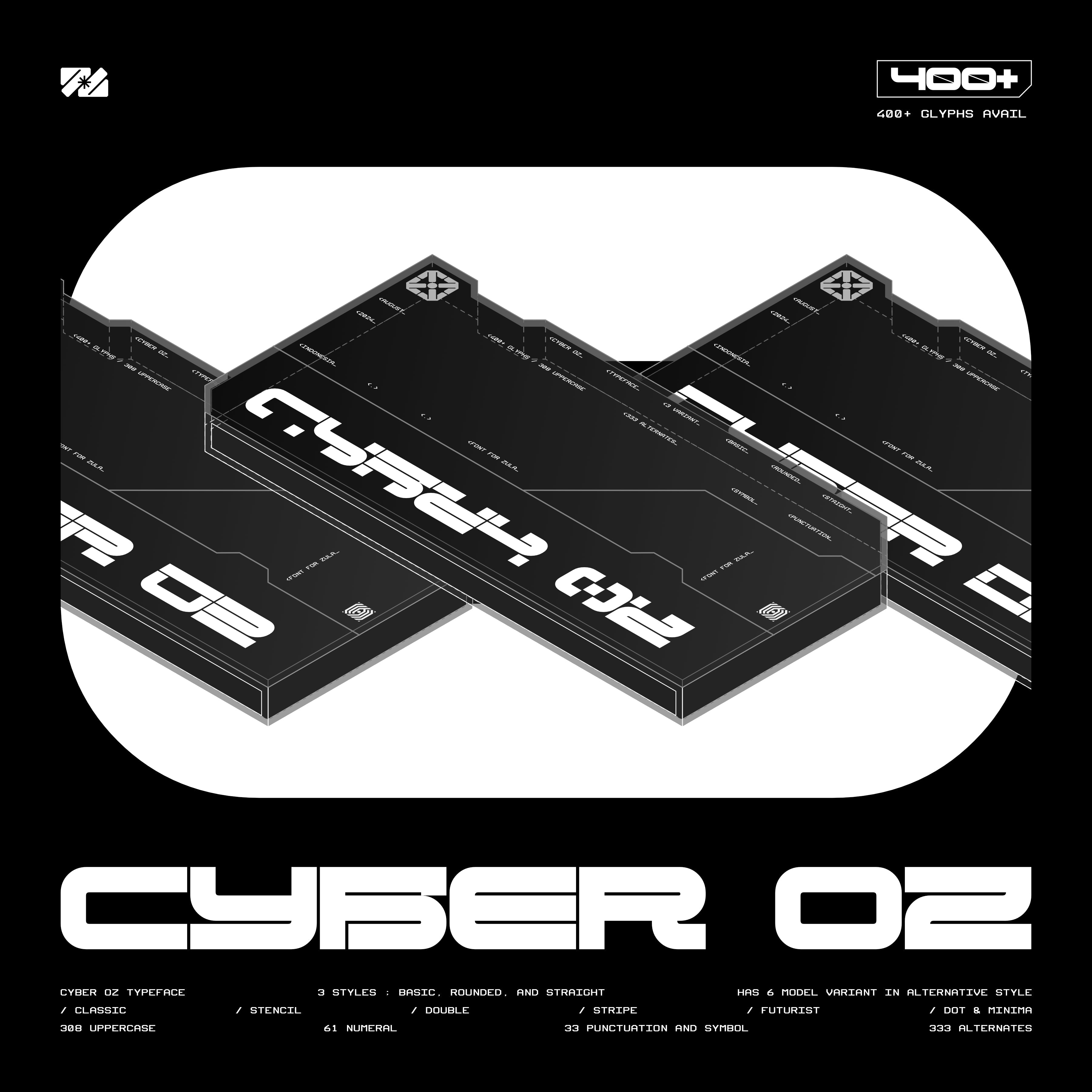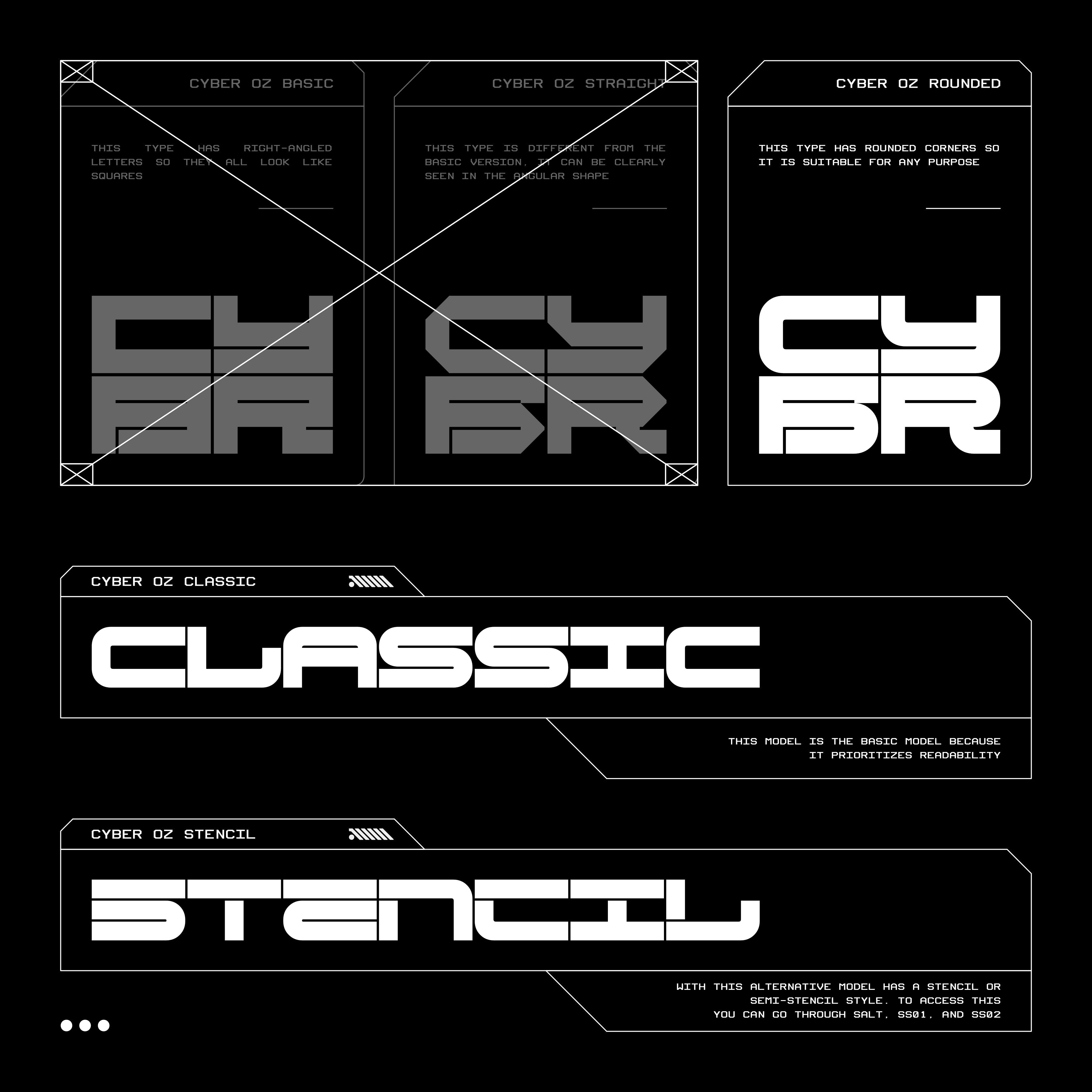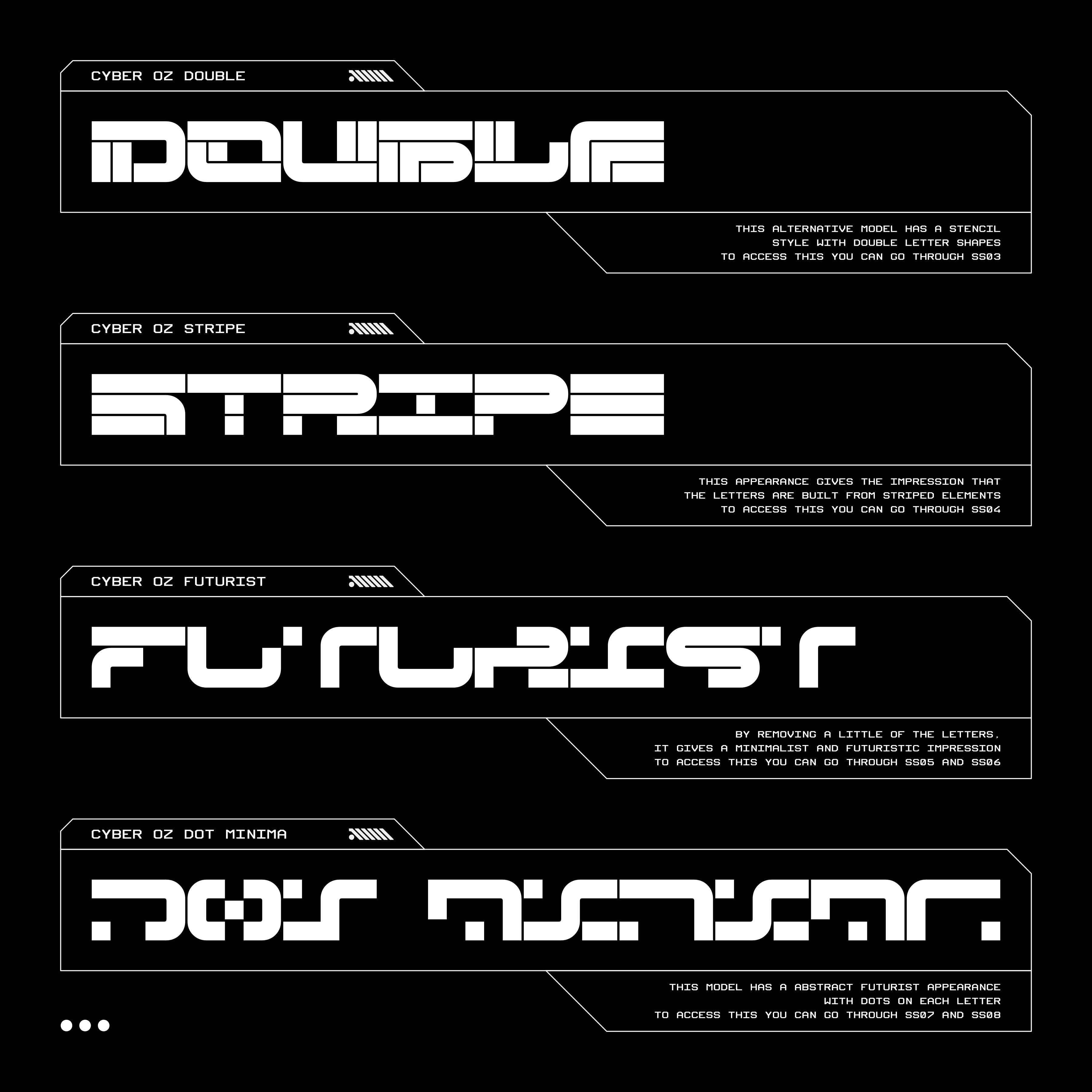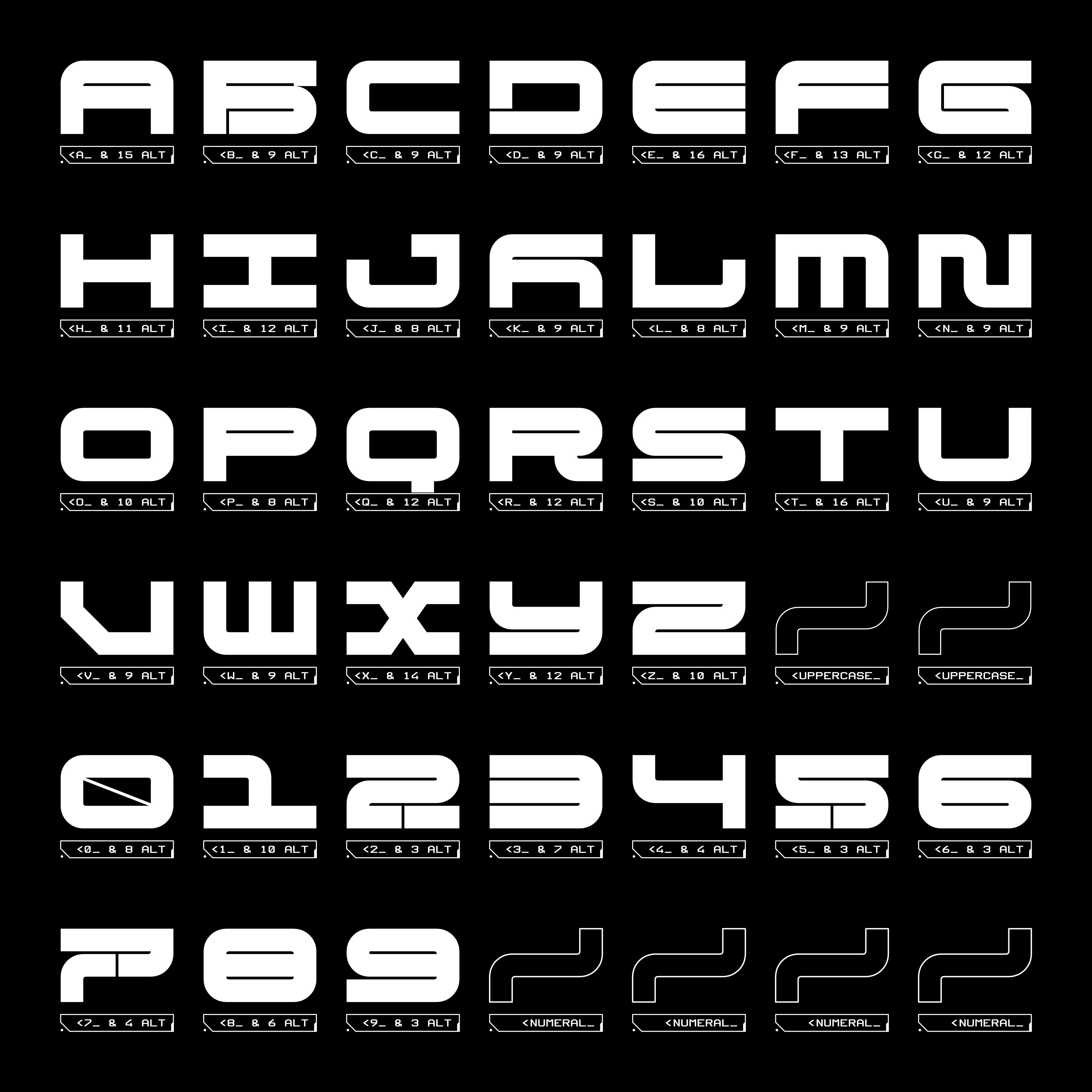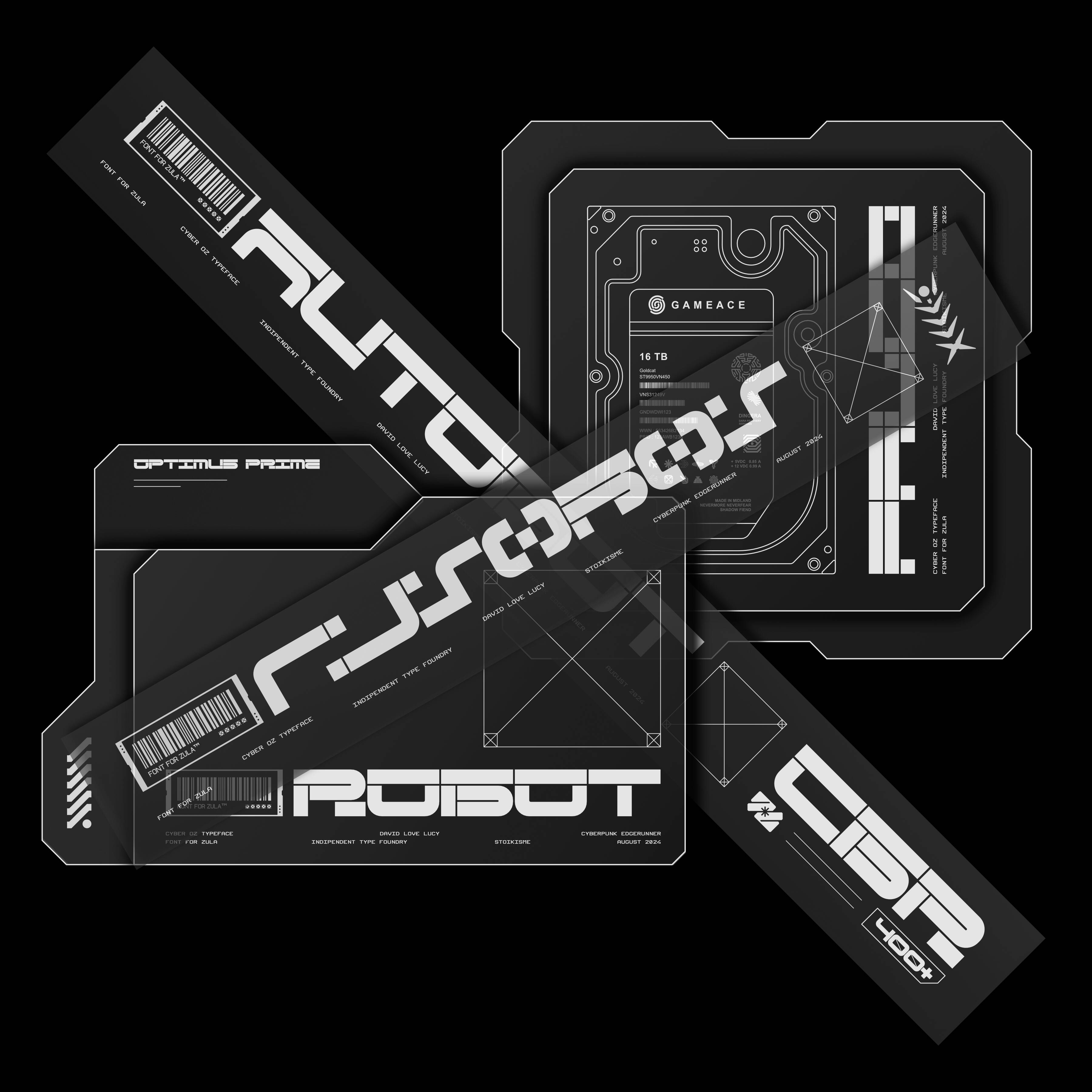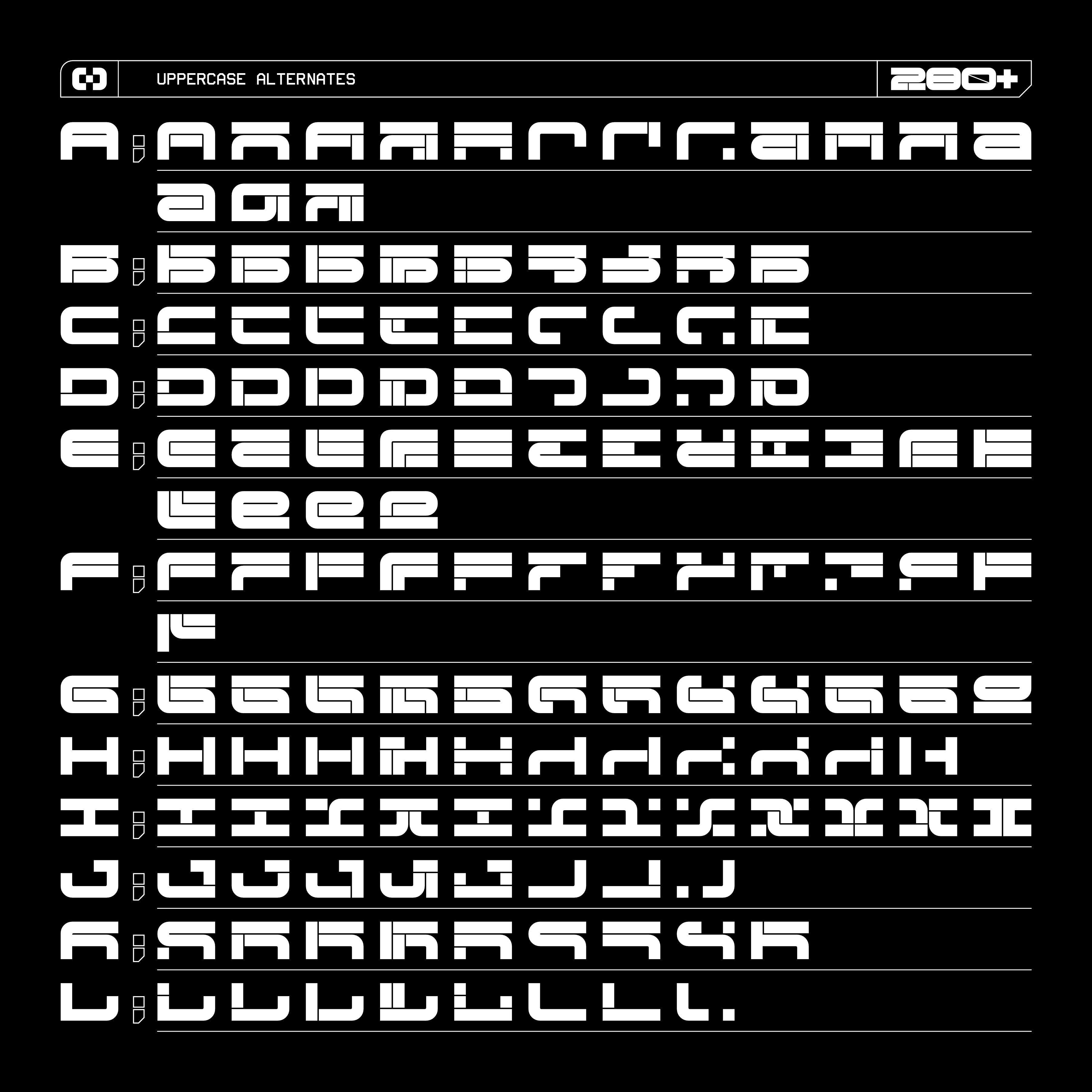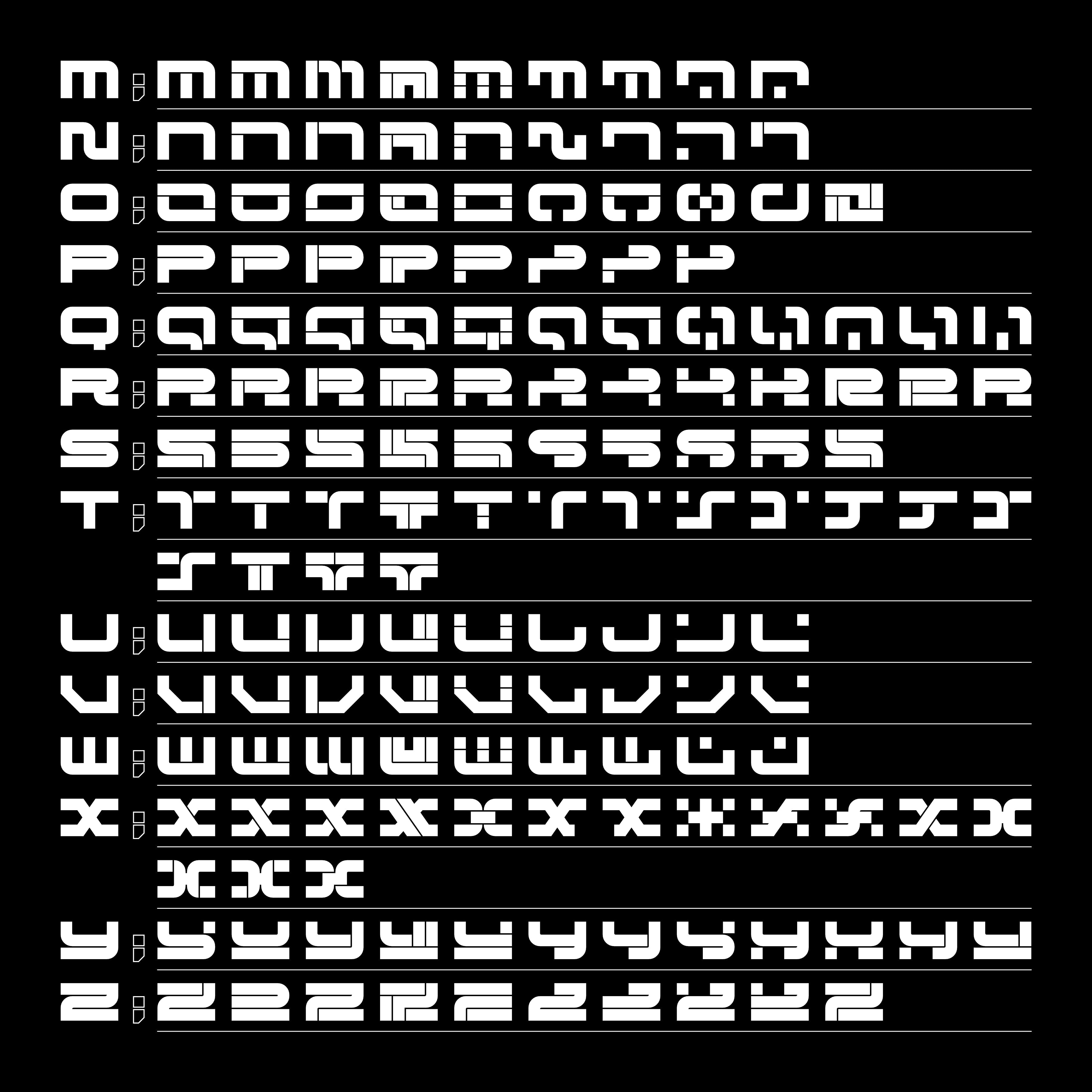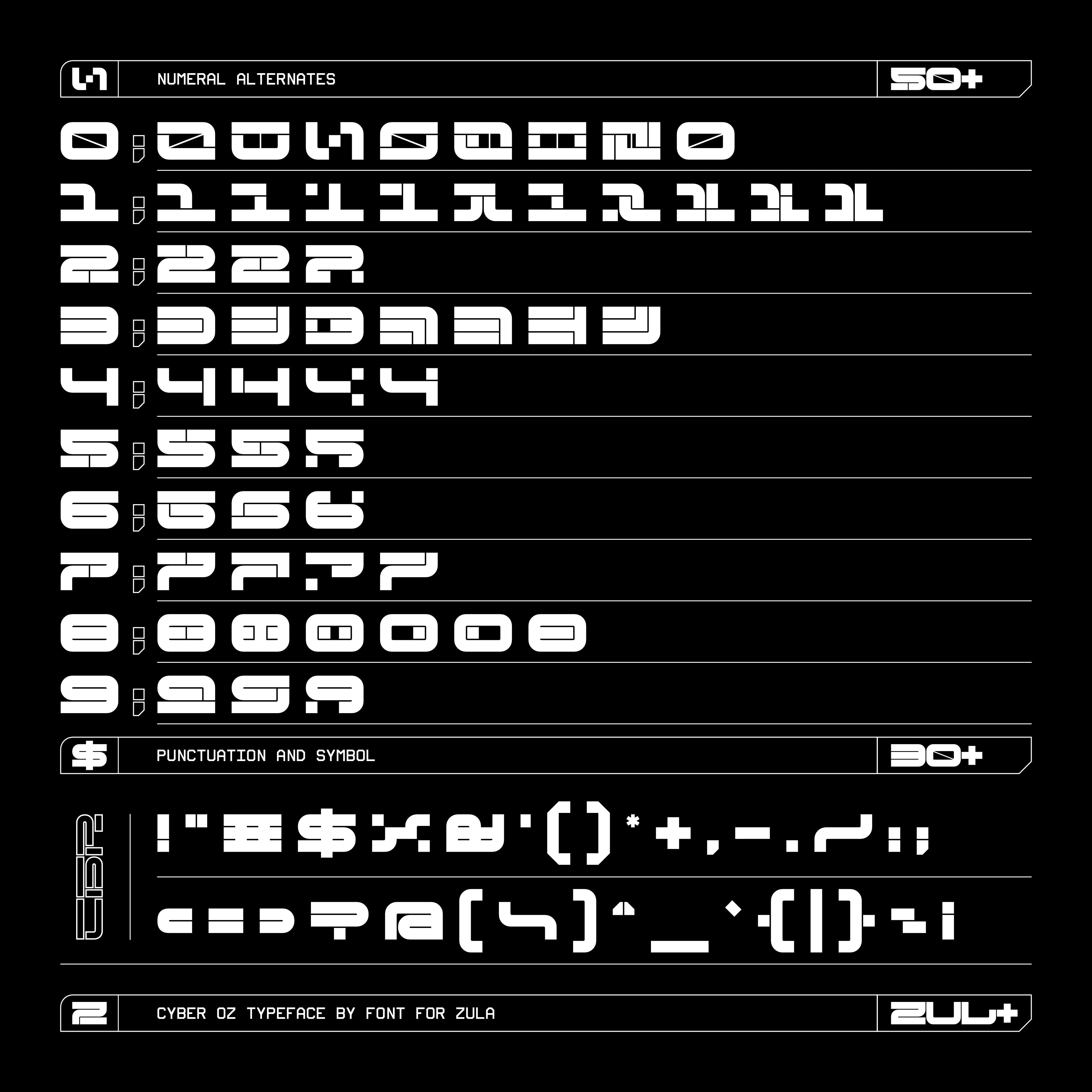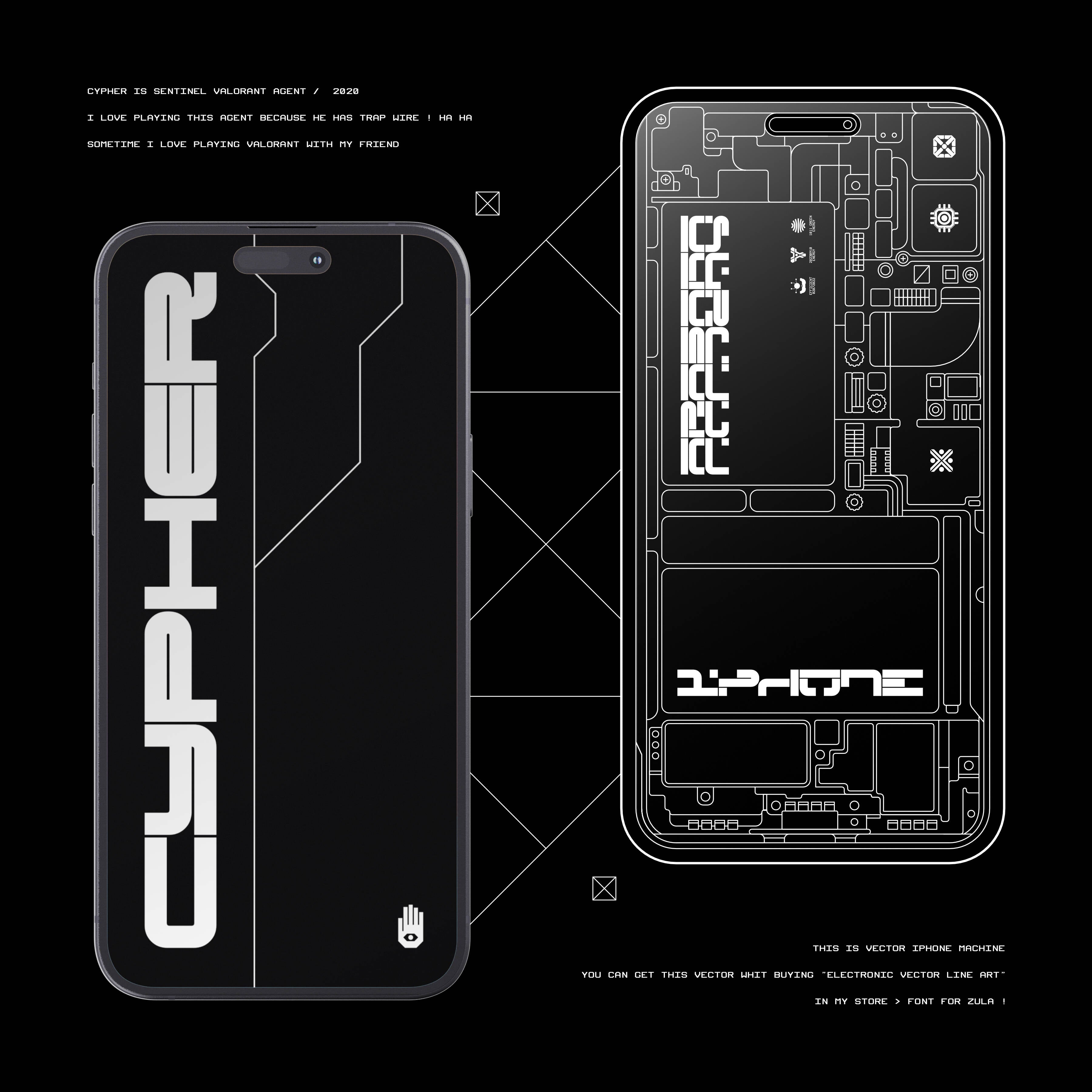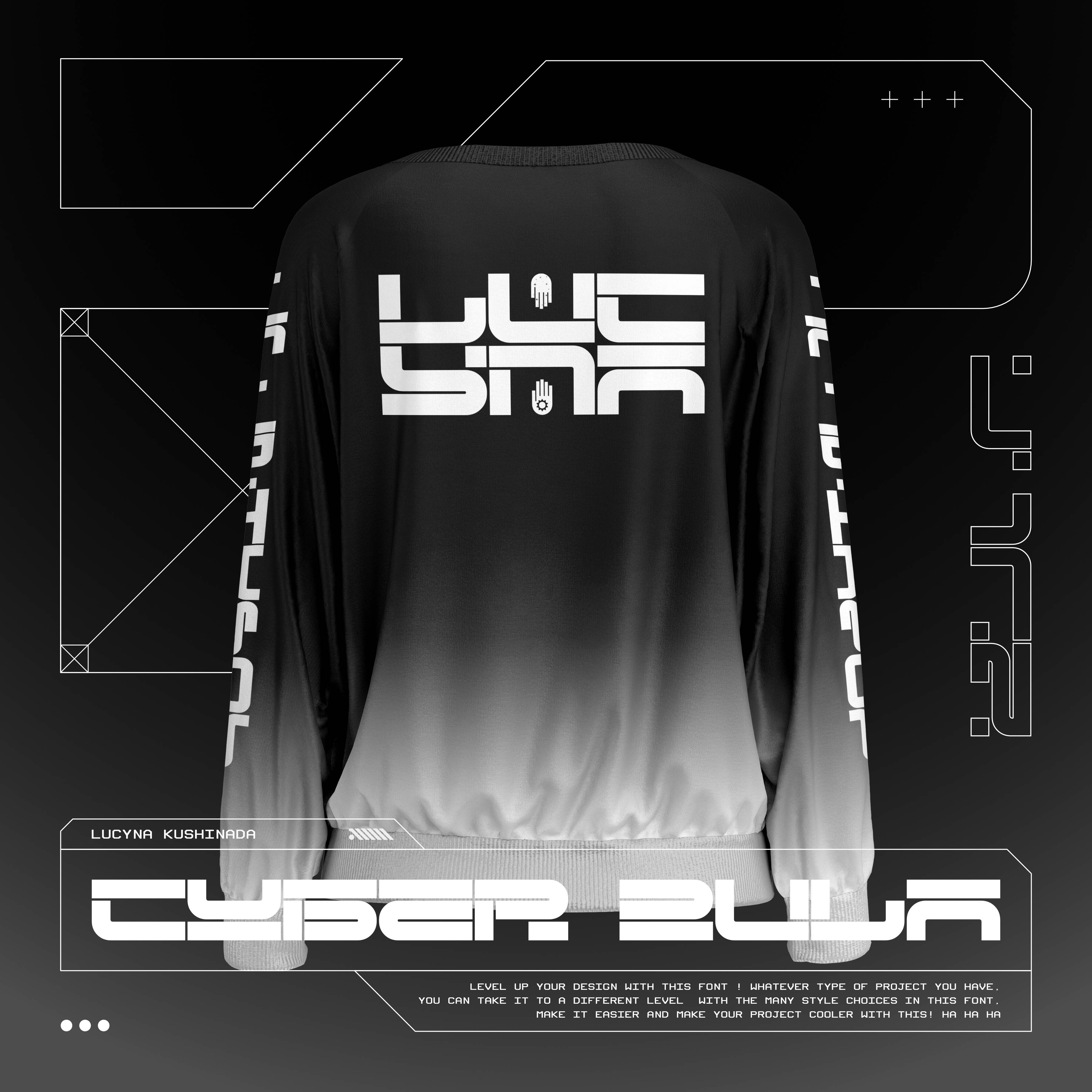
CYBER OZ ROUNDED Typeface
The CYBER OZ ROUNDED Typeface is a futuristic font featuring over 400 glyphs, 282 alternative Uppercases, and 51 alternative Numerals. It offers six models in alternative forms including Classic, Stencil, Double, Stripe, Futurist, and Dot Minima, and includes punctuation, symbols, and is available in OTF/TTF and WOFF formats.
Ideal for futuristic and cyberpunk design projects. Perfect for branding, posters, album covers, and logotypes, ensuring a versatile and visually striking aesthetic.